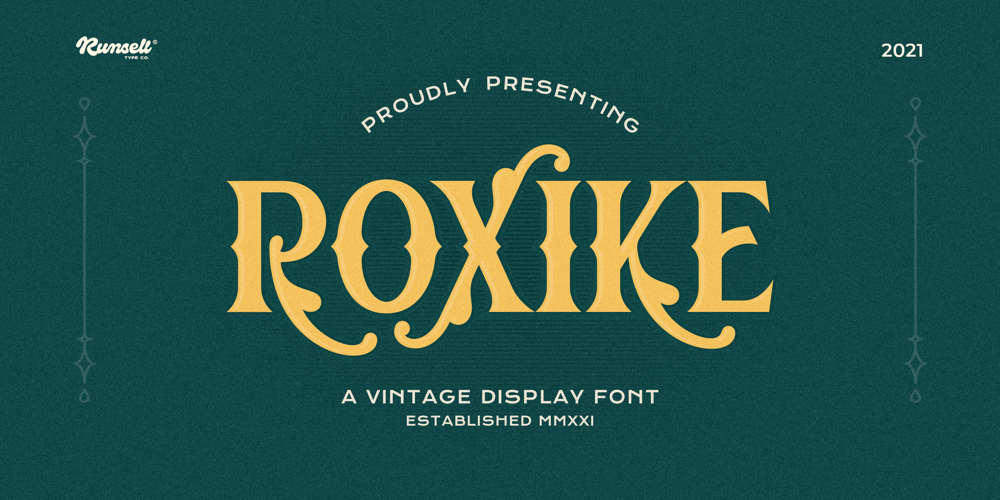
Roxike
Roxike font
Roxike Font Family was designed by Fitriyawan, Satia Hayu Prabowo and published by Runsell Type. Roxike contains 1 styles and family package options. Roxike font is perfect for many of your projects like logos & branding, photography, invitations, watermarks, advertisements, product designs, stationery, wedding designs, labels, product packaging, special events and much more.